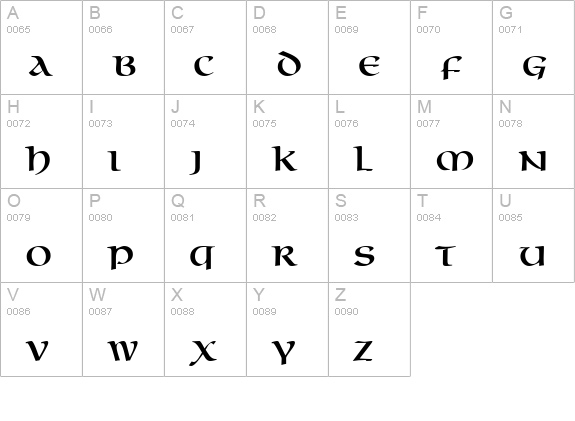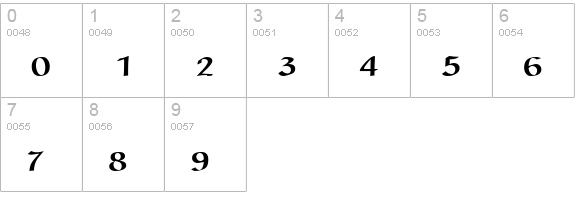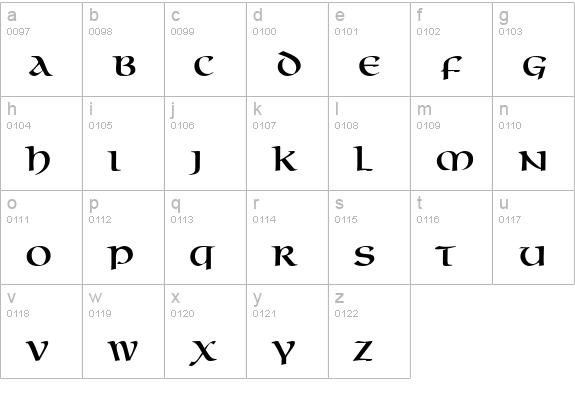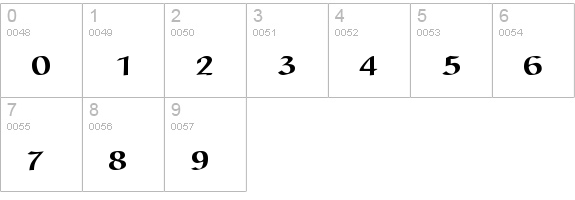
MacedonCapsSSK Font Details
MacedonCapsSSK is a beautifully designed font that exudes elegance and sophistication. With its clean lines and stylish curves, this font is perfect for adding a touch of class to any project. Whether you're designing a logo, creating a wedding invitation, or crafting a professional presentation, MacedonCapsSSK will effortlessly elevate your work to new heights. What makes MacedonCapsSSK even more appealing is that it is available for free. Yes, you read that right! This incredible font can be downloaded at no cost from FontsMarket.com. So not only do you get a high-quality and visually stunning typeface, but you also get it without spending a dime. The versatility of MacedonCapsSSK is also worth mentioning. It works well in both digital and print mediums, ensuring that your designs will look amazing no matter where they are displayed. The attention to detail in this font is exceptional, with each letter meticulously crafted to create a cohesive and harmonious overall look. With its timeless appeal, MacedonCapsSSK is suitable for a wide range of projects. From branding and advertising materials to invitations and website designs, this font will make a lasting impression on anyone who sees it. Its sleek and modern appearance adds a touch of sophistication, while its legibility ensures that your message is always clear and easy to read. So why wait? Take advantage of this incredible opportunity to download MacedonCapsSSK for free at FontsMarket.com. Enhance your designs, captivate your audience, and bring your creative vision to life with this remarkable font. It's time to make a statement and stand out from the crowd with the help of MacedonCapsSSK.